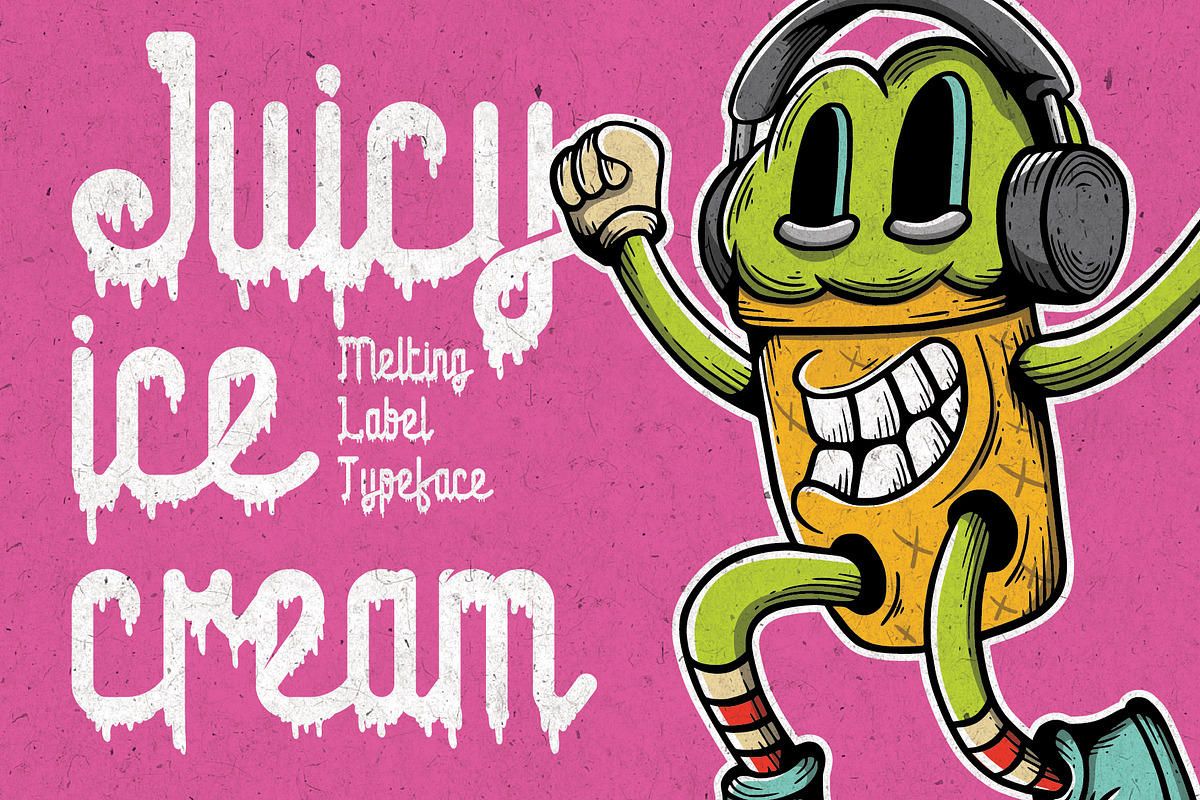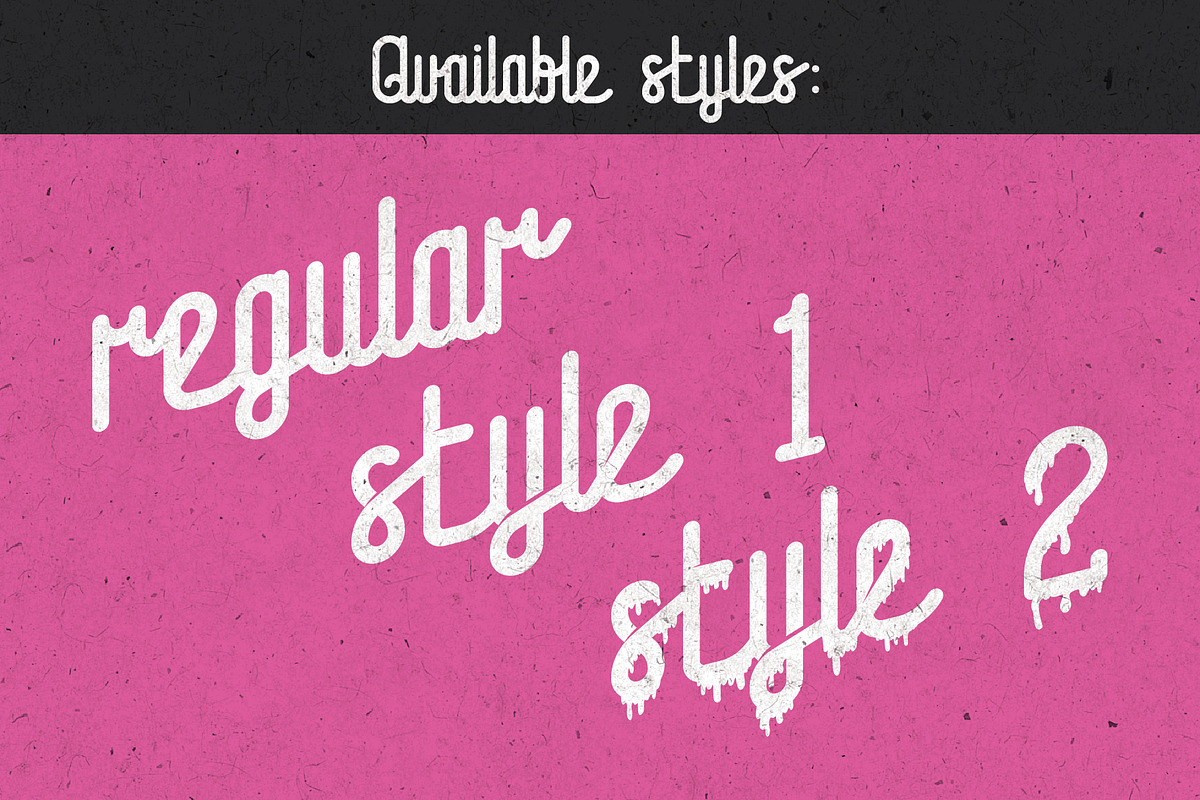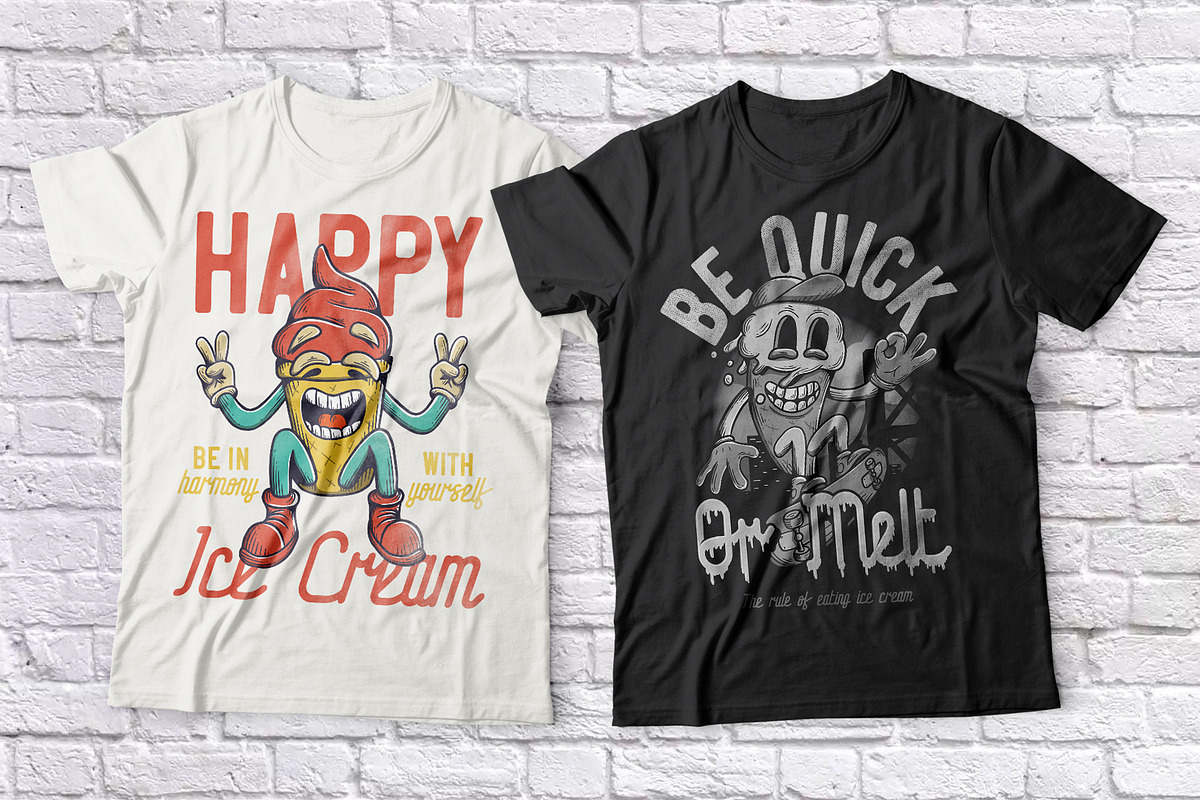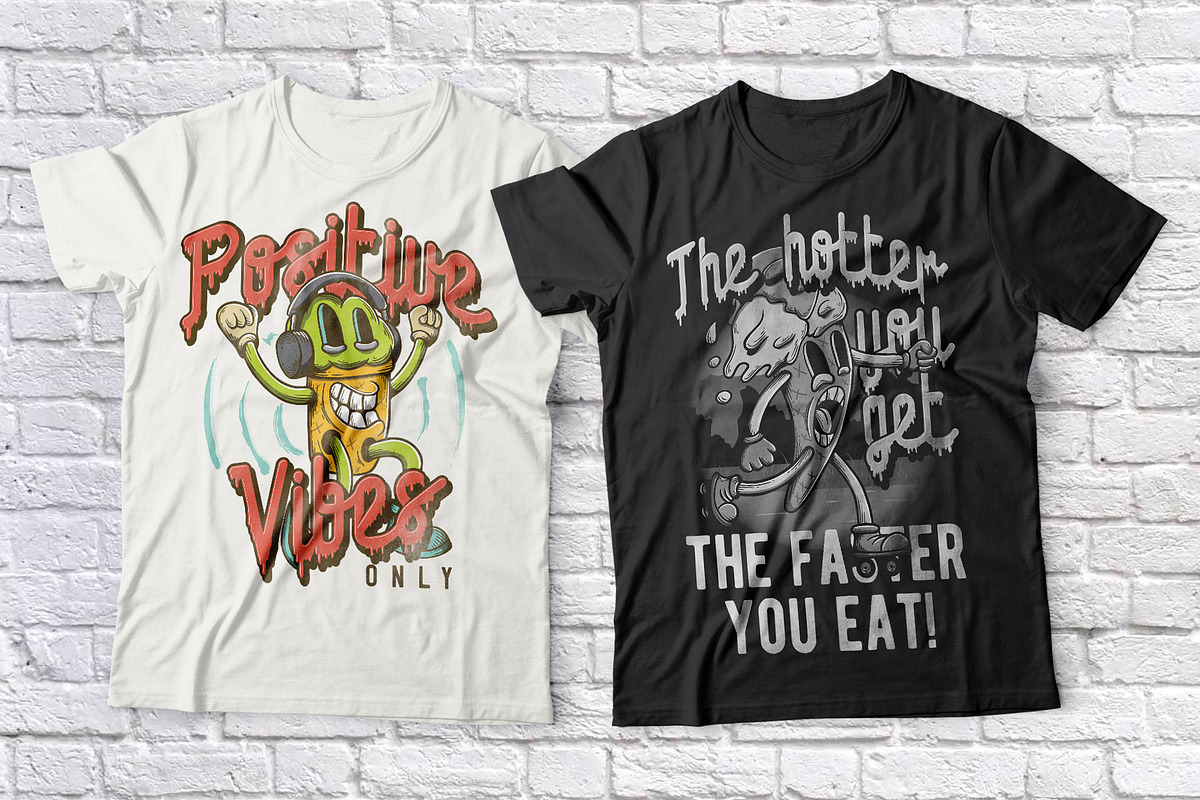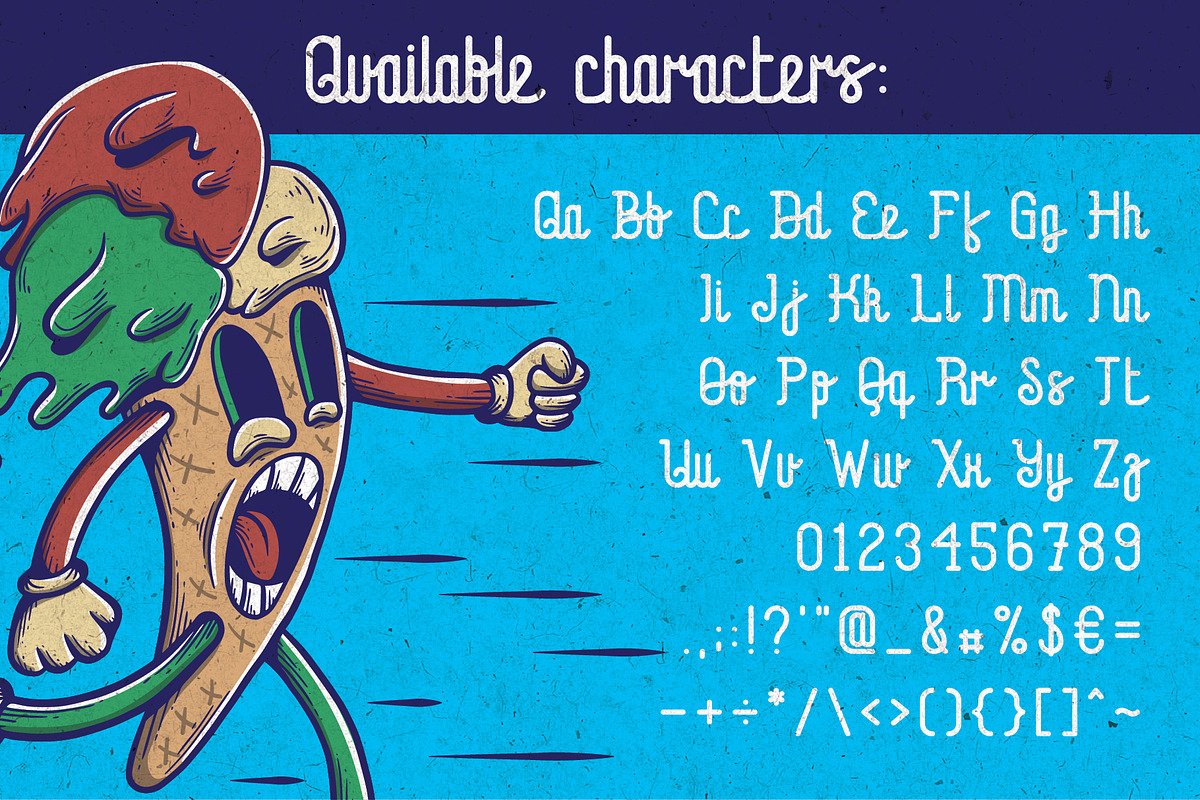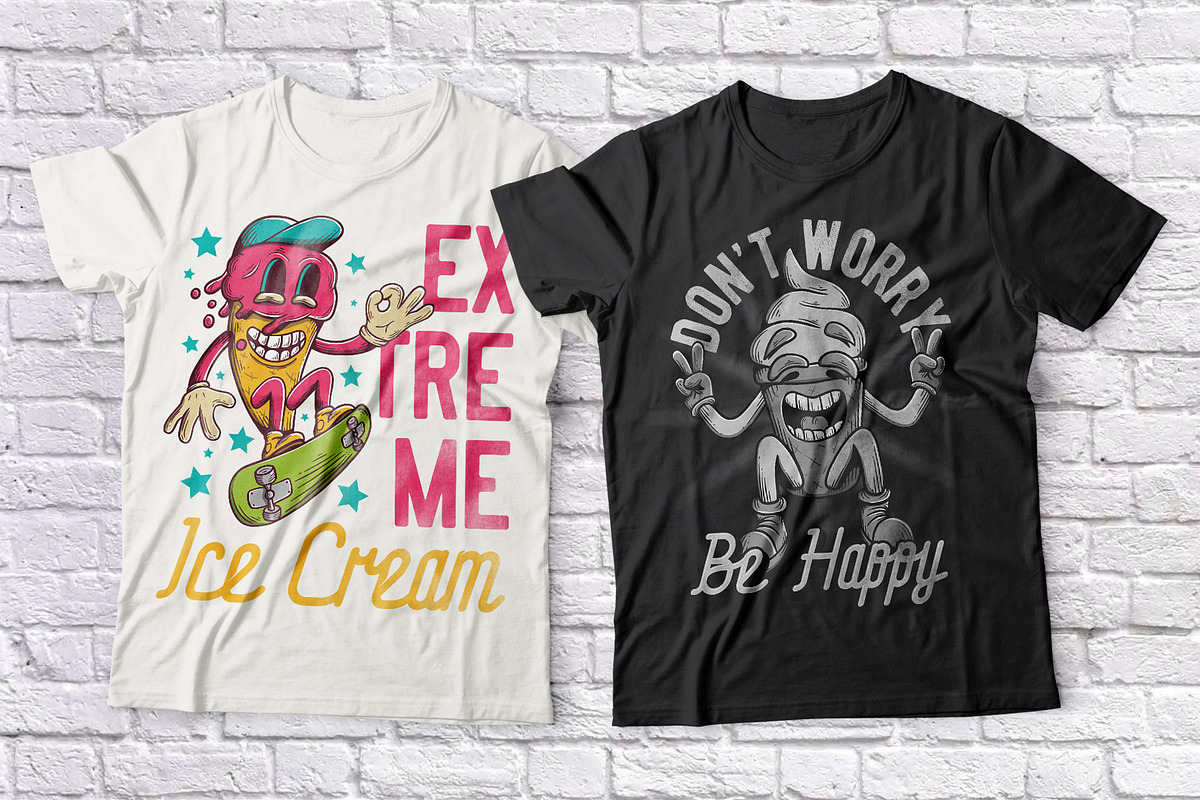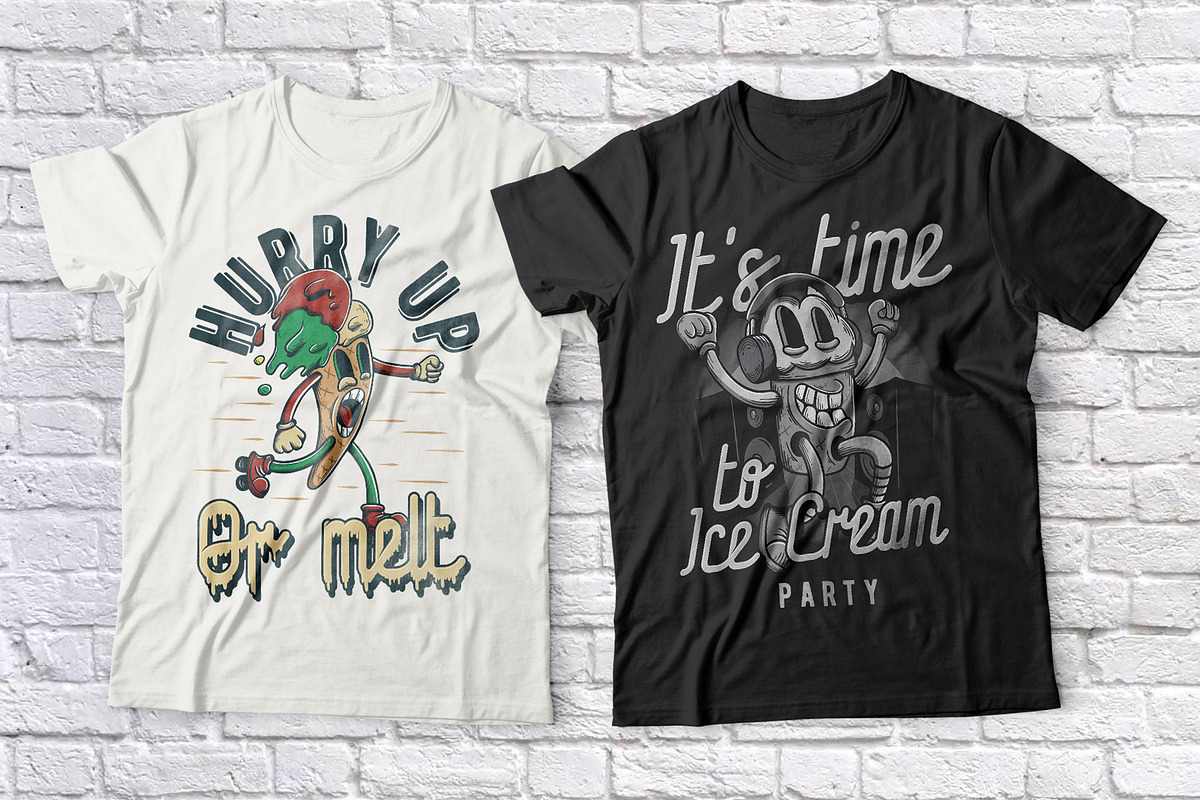
Juicy Ice Cream font + bonus
Introducing a script label font named Juicy Ice Cream. Typeface contains small letters, capital letters, numbers and punctuation characters. Juicy Ice Cream font have three styles, look at screenshots. This font will good viewed on any retro design like poster, t-shirt, label, logo etc.
- Juicy Ice Cream Regular
- Juicy Ice Cream Style 1
- Juicy Ice Cream Style 2